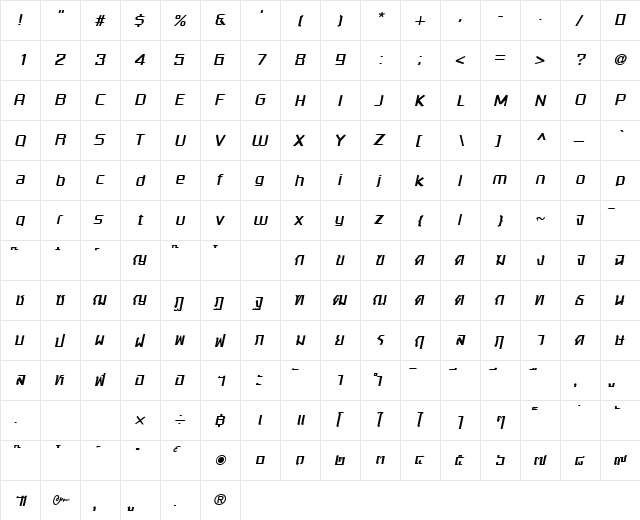
PSL-Advert Italic
Design Context for PSL-Advert Typeface
PSL-Advert takes a measured approach to typography — its balanced proportions and neutral character make it a reliable workhorse for both digital and print work. The dynamic lean of this cut emphasises speed and emphasis in any layout.
Pro Tip: Use PSL-Advert for emphasis, pull quotes, and subheadings where its slanted energy can add rhythm to the layout.